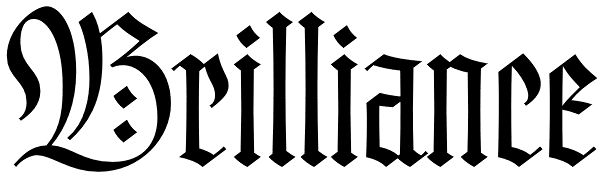
Brilliance
Brilliance is a glamorous contemporary display blackletter combining the rich tapestry of Textura with a hint of the airy lightness of Spencerian script, ideal for display purposes. In addition to exuberant, swashy capitals and crisp, rhythmic...
Brilliance Oblique